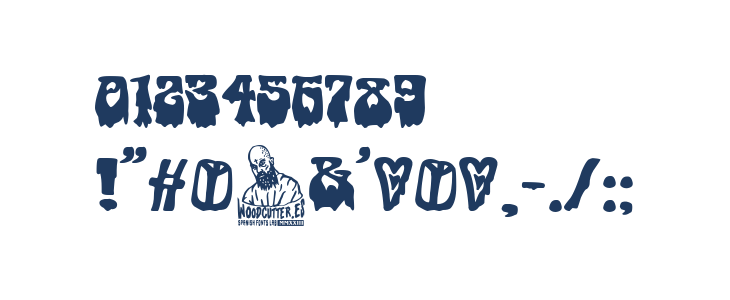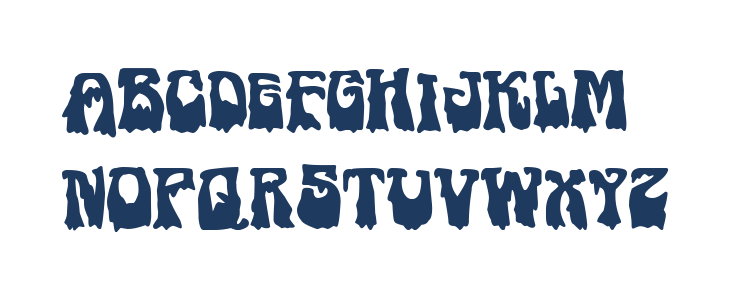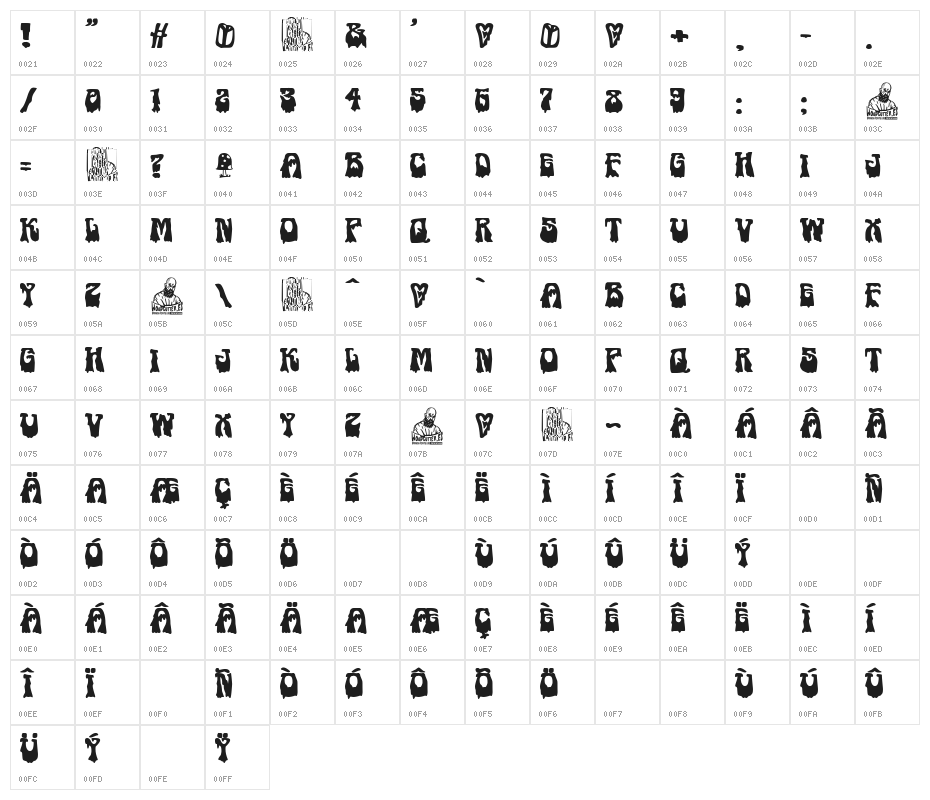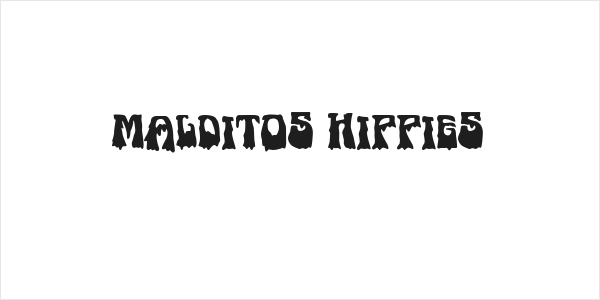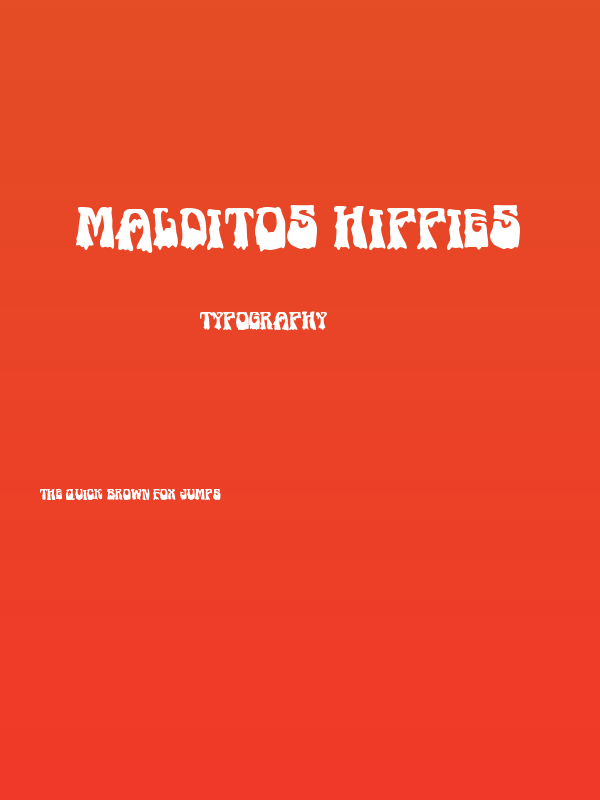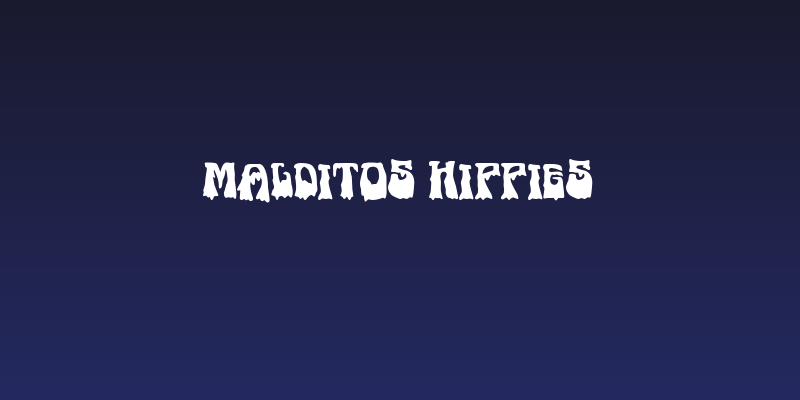
Malditos Hippies Font
Malditos Hippies Description
A bold, decorative display font with irregular, jagged edges and a dripping, organic appearance, evoking a grungy or horror-inspired aesthetic. All characters are uppercase, with exaggerated, uneven forms and heavy black fills.
| Overall Style | Decorative, Horror, Grunge |
| Use Case | Headlines, Posters, Logos, Event Titles |
| Proposed Projects | Halloween posters, horror movie titles, event flyers, album covers, themed party invitations. |